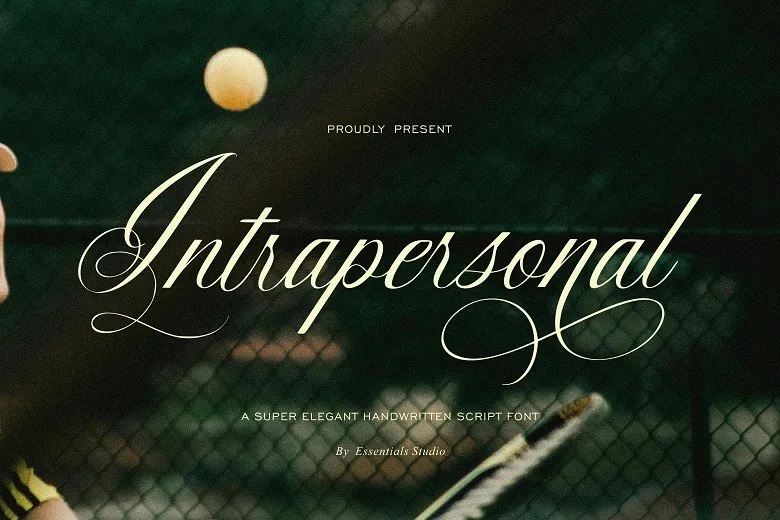
Intrapersonal Font
Interpersonal is a super elegant calligraphy script font designed by the Essentials Studio and this font family can be great for scripts. Each element of the design is aimed at embodying a form of sophistication that is only characteristic of the design. Revamped for uses which are not conventional, Interpersonal is best used in branding, logo creation, and wedding invitations.
It is also the ideal choice for product packaging or to give a more elegant appearance to any background. For Interpersonal, you should apply manners in every single word you use. You will appreciate the unique feel of Interpersonal and unleash your creativity.
Intrapersonal Calligraphy Script Font